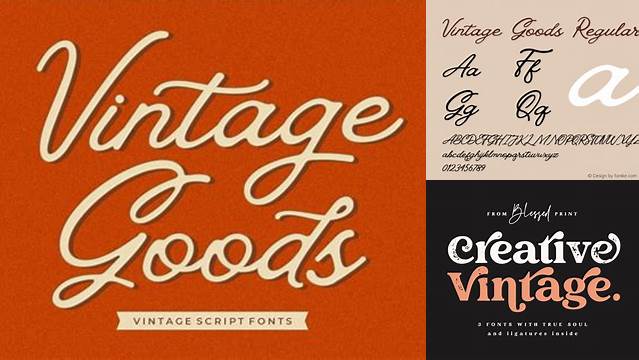
Welcome, design enthusiasts! Today, we're diving headfirst into the charming world of vintage goods fonts. These fonts are more than just letters; they're a trip back in time, a nostalgic nod to a bygone era of craftsmanship, and a fantastic way to add character and personality to your design projects. And the best part? We're talking about a free download! Yes, you heard that right. You can access a treasure trove of retro fonts without spending a dime. So, buckle up, guys, because we're about to explore the ins and outs of vintage fonts, where to find them, how to use them, and why they're still so incredibly popular in today's design landscape.
What Exactly Are Vintage Goods Fonts?
Vintage goods fonts are essentially typefaces that draw inspiration from the past. Think of the classic letterforms you'd see on old storefront signs, vintage packaging, antique advertisements, and handcrafted goods. These fonts often feature unique characteristics like serifs (the small decorative strokes at the end of letterforms), worn textures, and a sense of handmade authenticity. They evoke feelings of nostalgia, quality, and a sense of history. The core of these fonts lies in their ability to transport viewers to another time. They act as visual cues, instantly communicating a sense of heritage, tradition, and timelessness. This makes them incredibly versatile, suitable for a wide range of design applications. Whether you're working on a retro-themed website, a product label with a vintage aesthetic, or branding for a business that values tradition, a well-chosen vintage font can work wonders. But, there are many categories of vintage fonts. Some may look like serif fonts, which are classic letterforms with small decorative strokes at the ends of the letters. These can give a look of elegance and old-time sophistication. Others are script fonts, fonts designed to imitate handwriting. They are more of a personal feel, perfect for invitations, quotes, or any design that requires a touch of personality. Display fonts are fonts designed to stand out, which can be bold, ornate, and ideal for headlines, titles, and logo design. These can be used to make a visual statement. Vintage fonts aren't just about aesthetics; they're about storytelling. They give designers a powerful tool to communicate a specific message and evoke a particular emotion. They are a great choice for designs because they have a sense of history, tradition, and authenticity. Finding the right one can significantly enhance the effectiveness of any design.
How to Use Vintage Fonts in Your Designs
Now that you have your free download of vintage fonts, it's time to put them to work. Here are some tips and ideas on how to effectively incorporate these fonts into your design projects:
- Consider the Context: Before you start, think about the overall message you want to convey. Does the vintage font align with the brand's or project's identity? A font that's perfect for a retro-themed poster might not be suitable for a modern corporate website. Choose your fonts carefully.
- Pairing Fonts: Experiment with different font combinations. Combining a vintage display font with a clean, simple sans-serif font for body text can create an exciting contrast. Think about the relationships between fonts. Contrast the fonts for effective results.
- Hierarchy and Readability: Although vintage fonts often have a strong visual appeal, make sure that the text remains readable, especially in larger blocks of text. Use vintage fonts for headings, titles, and accents, and opt for a more legible font for body text.
- Color Palette: Vintage fonts work wonderfully with specific color palettes. Muted tones, earthy colors, and vintage color combinations can complement the fonts and further enhance the retro aesthetic. Think about color psychology and how it impacts your font.
- Textures and Effects: Enhance the vintage feel by incorporating textures, such as paper, grunge, or worn effects. You can easily add these effects in design software like Adobe Photoshop or Canva. This will make your design look more authentic. This also helps blend the design together.
- Logo Design: Vintage fonts are perfect for creating logos for businesses that want to communicate a sense of tradition, craftsmanship, and heritage. Experiment with different vintage font styles to achieve the desired look. Ensure that the font is unique and easy to remember.
Conclusion: Embrace the Retro Revival!
So there you have it, guys! A complete guide to the wonderful world of vintage goods fonts, including where to find a free download and how to make the most of them. These fonts can add personality, character, and a touch of nostalgia to your design projects. They're a powerful tool for communicating a specific message and evoking particular emotions. By following these tips and exploring the vast selection of free vintage fonts, you can create designs that are both visually appealing and historically relevant. So go ahead, embrace the retro revival, and let your creativity flow. Happy designing!